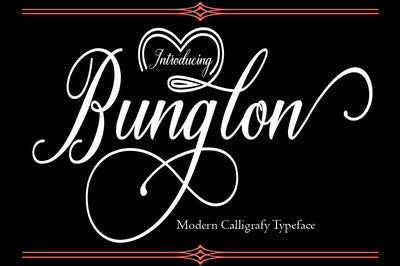
Bunglon
Bunglon Font script An organic and expressive handwritten brush script font designed for versatility. It’s legible; making it perfect for product packaging, editorial work, and poster design, and it oozes personality; great for branding, invitations, and more.
Bunglon Font script Modern Calligraphy. This font was designed by handwriting, and it has a modern and unique forms of calligraphy, the writing style is very natural.
The Features of this fonts is;
Stylistic Alternates
Contextual Alternates
Stylistic sets
Bunglon An organic and expressive handwritten brush script font designed for versatility. Very good for branding, invitations, and more.